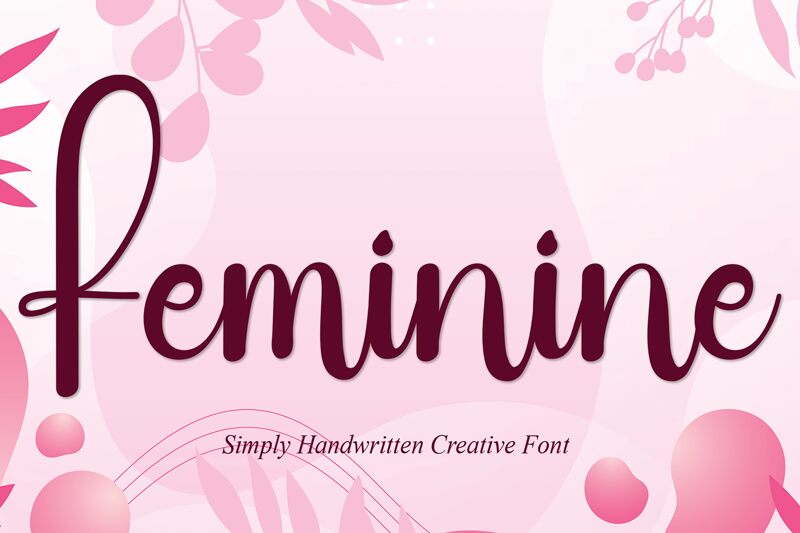
Feminine
Feminine, designed by Scratchones, is a calligraphy font that embodies grace and sophistication. Its semi-light weight lends an airy, delicate touch to each character, evoking the elegance of hand-written script. The fluidity of Feminine's strokes suggests a personal touch, making it ideal for invitations, branding, and upscale marketing materials where a touch of intimacy is desired.
The font's stylish curves and fine lines are reminiscent of classic calligraphy but with a modern twist. This blend makes Feminine versatile enough for both traditional and contemporary designs. Its aesthetic appeal resonates with an audience looking for that bespoke feel in typography. Whether used for fashion labels, cosmetics packaging or wedding stationery, Feminine's charm enhances the visual narrative with its artful poise.